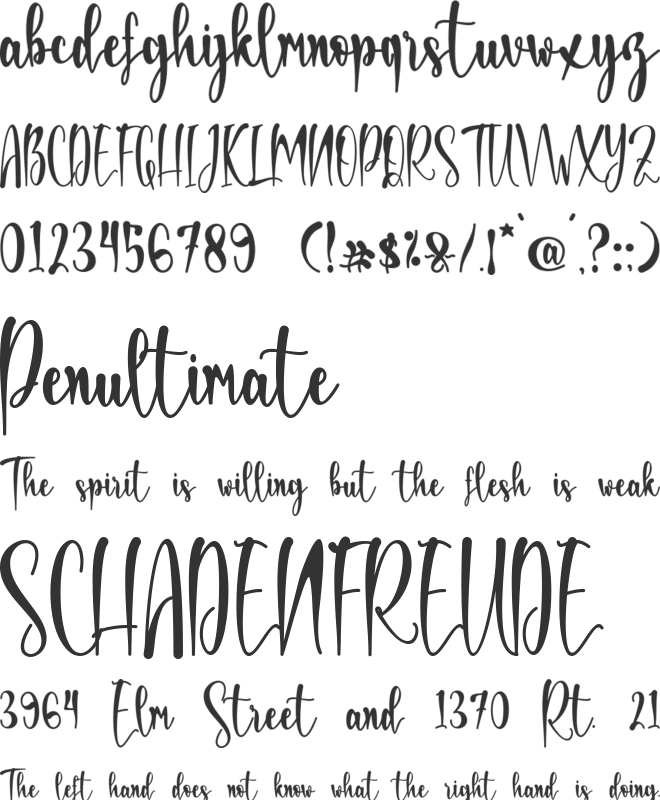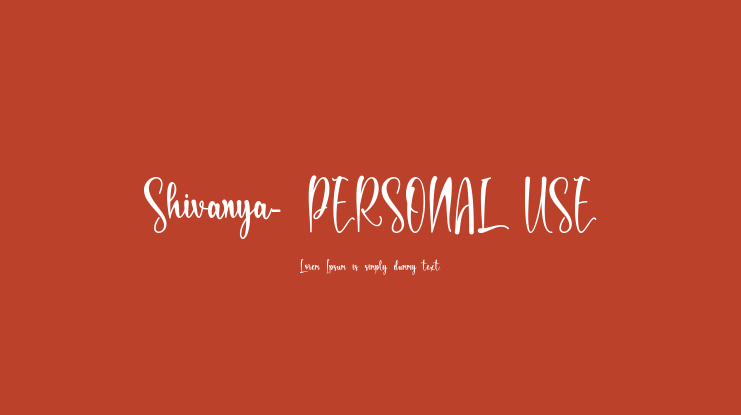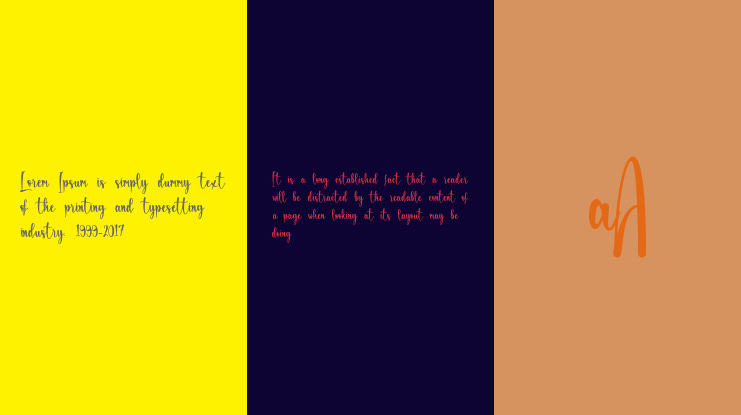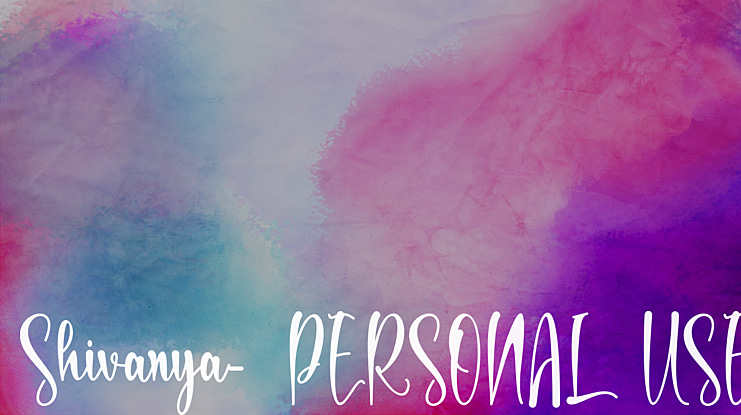
Shivanya- PERSONAL USE Font
Shivanya is a beautiful font that was carefully crafted to create very pretty, modern and beautiful lines.
Shivanya font is very suitable for business cards, greeting cards, wedding invitations, designs, etc.